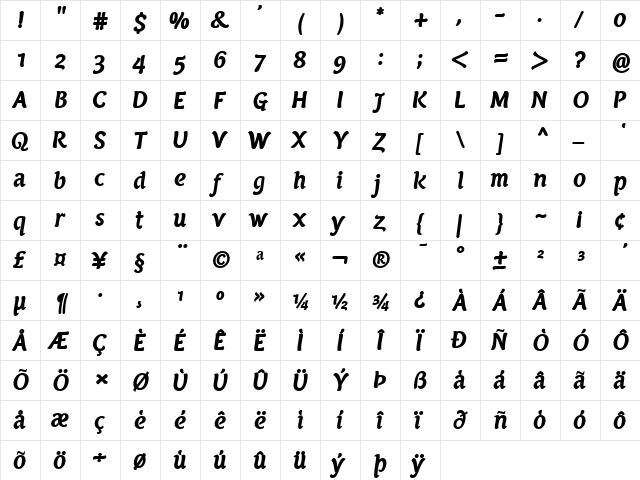
PF Armonia Bold Italic Font Preview
| Foundry | Vangelis Karageorgos |
| Designer | Vangelis Karageorgos |
Design Context for PF Armonia Typeface
PF Armonia takes a measured approach to typography — its balanced proportions and neutral character make it a reliable workhorse for both digital and print work. Its italic angle brings a sense of urgency and motion to the letterforms. The heavy weight commands attention and anchors typographic hierarchies.
Pro Tip: Try PF Armonia for annotation and caption copy alongside an upright companion — the contrast in angle creates a dynamic but ordered typographic system.